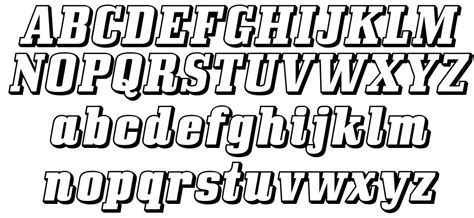
Amazing PSEPS ESE Font Bullpen 3D Designs
Hey guys! Ever stumble upon something so cool that it just screams to be explored? Well, that’s exactly how I felt when I dove into the world of PSEPS ESE Font Bullpen 3D designs. This isn’t just about fonts; it’s about crafting a whole new dimension of visual storytelling. I’m talking about taking your projects, your presentations, your everything , and injecting them with a dose of unparalleled creativity. We are going to explore the wonders of the PSEPS ESE Font Bullpen 3D and how this fantastic font can help you to make your designs unique. I will show you how to find the proper fonts, the details to know, and the design possibilities with this font. Whether you’re a seasoned designer or just someone who loves playing around with visuals, get ready to be amazed. Let’s get started!
Unveiling the Magic: What is PSEPS ESE Font Bullpen 3D?
So, what exactly is this PSEPS ESE Font Bullpen 3D thing everyone is raving about? Imagine a font, but instead of being flat and lifeless, it’s bursting with depth, character, and, well, 3D-ness . It’s like your words are jumping off the screen, ready to grab your audience’s attention. This isn’t just about picking a font; it’s about making a statement. PSEPS ESE Font Bullpen 3D is a collection of typefaces designed to bring a certain style, like a bullpen, to the design. From the boldest headlines to intricate details, this font gives you the power to create a visual experience that is truly unforgettable. Think of the possibilities. You can create cool posters, logos that pop, and presentations that leave people speechless. This font is perfect for any project that needs a touch of modern art with a 3D visual. The PSEPS ESE Font Bullpen 3D brings a whole new level of style to your designs. It’s time to take your designs to the next level!
Design Possibilities: Unleashing Your Creativity
Now comes the fun part: how do you actually use this PSEPS ESE Font Bullpen 3D to create something amazing? The answer is: in any way you can imagine! The possibilities are truly endless. Let your creativity run wild, and don’t be afraid to experiment. This font is incredibly versatile, so you can really push the boundaries of design. Use it to create stunning social media graphics that capture attention, and make your content go viral. Build eye-catching website headers that draw visitors in and keep them hooked. Design unique logos and branding materials that make a lasting impression. Let’s dig deeper to see some cool design possibilities. This font opens up a world of new design possibilities for you, and it’s time to take advantage of them!
Logos and Branding
When it comes to logos and branding, PSEPS ESE Font Bullpen 3D is a game-changer. Imagine crafting a logo that not only looks professional but also has that extra wow factor. This font can give your brand a modern and unique aesthetic. Using this font, you can create a logo that perfectly represents the identity of your brand. With the 3D aspect, your logo will stand out and leave a memorable impression on potential customers. The unique design options let you create a strong brand identity that will capture the attention of your target audience. You can create custom typography for all your branding materials, so you have a complete visual brand package. Using this font, you can take your branding to the next level. You can really show the unique style of your company and stand out from the competition. Take your brand to new heights with this amazing font.
Social Media Graphics
Social media is all about grabbing attention. And what better way to do that than with PSEPS ESE Font Bullpen 3D ? This font is your secret weapon for creating social media graphics that make people stop scrolling and take notice. Design striking quotes, captivating announcements, and attention-grabbing headlines. Turn your ordinary posts into visual masterpieces. Use this font to make your content pop and to increase engagement. The 3D effect is perfect for creating graphics that look professional and are designed to make you famous on social media. Your content will look unique, so your audience will notice you right away. Create a cohesive look for all your social media profiles, and boost your brand awareness with a unique aesthetic. Now it is time to capture your audience!
Website Headers and Titles
First impressions matter, and your website header is your digital handshake. The PSEPS ESE Font Bullpen 3D can make your website header pop and create a visual experience that engages your visitors. With the use of this font, you can easily create eye-catching titles and section headers that will grab the attention of your audience. The 3D effect gives your website a modern and stylish look. Use the font to create a unique look for your website. The font is perfect for any project. This font is an amazing choice to improve the design of your website. So, why not try it? Use this font for every header and title to impress your audience.
Tips and Tricks: Mastering the Font
Alright, you’ve got the font, you’re bursting with ideas, but how do you actually make the most of PSEPS ESE Font Bullpen 3D ? Here are a few insider tips and tricks to help you get started. Play around with the scale, color, and effects to create a custom look for every project. Don’t be afraid to experiment with different backgrounds and design elements to see what works best. Always keep in mind that the little details make all the difference. Get ready to master this font, and unleash your creativity. Let’s get your projects to the next level.
Experiment with Colors and Effects
One of the best ways to bring the PSEPS ESE Font Bullpen 3D to life is by experimenting with colors and effects. Try adding gradients, shadows, and textures to enhance the 3D effect and create a sense of depth. Play around with different color combinations to match your brand’s style. Try adding bold colors, and bright contrast to see what fits your brand best. Use gradients to add more life to your designs. You can try adding a neon color to add a modern touch to your designs. Never forget that colors can make or break your design. So, choose colors that are right for your project. Don’t be afraid to try different effects to give your design a professional look.
Combine with Other Design Elements
Don’t let the PSEPS ESE Font Bullpen 3D stand alone. Combine it with other design elements to create a more comprehensive and eye-catching design. Blend the font with various images, illustrations, and shapes. Try incorporating it into a layout to create an interesting visual hierarchy. Use this font with icons to create something new. Make sure the additional design elements complement the font. It’s time to get creative. Make sure that you have an organized and beautiful design by combining it with other elements. The combination can make your design unique, and you can show off your creativity and personality. Go crazy, and experiment to find the perfect combo!
Stay Updated and Get Inspired
The design world is constantly evolving, so staying updated is really important to use this font to its full potential. Always keep your font updated to get the latest features and improvements. Look for inspiration from other designers and from the latest trends. Read design blogs and follow designers on social media. By staying updated and inspired, you can continue to elevate your designs. You will get the most out of the PSEPS ESE Font Bullpen 3D . Always remember to stay curious and never stop learning. Keep an eye out for new designs and ideas, so you can always bring the most innovative ideas to your designs. Now, go create something amazing and unique!
Conclusion: Your Journey Begins Now!
So there you have it, folks! The awesome world of PSEPS ESE Font Bullpen 3D . I hope you’re as excited as I am about the possibilities. Now it’s time to get out there and start creating. Remember, the only limit is your imagination. Don’t be afraid to experiment, have fun, and let your creativity run wild. Happy designing, and I can’t wait to see what you create!